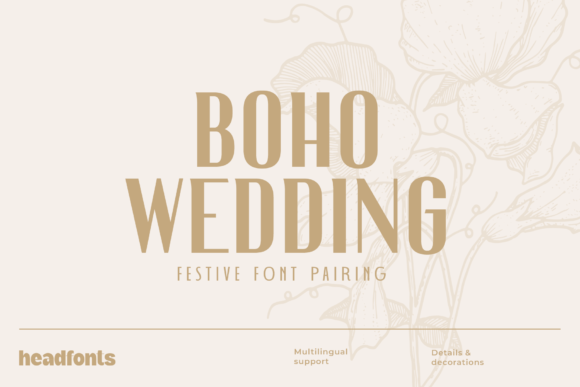
The Boho Wedding Font Duo: Elevate Your Bohemian-Inspired Designs
A Perfect Blend of Elegance and Simplicity
The Boho Wedding Font Duo brings together two beautiful fonts: Nailhead Nova, an exquisite font with refined sophistication, and Decohead, an art deco sans-serif typeface with a clean and geometric design. This versatile duo is perfect for bohemian-inspired weddings, and can be used for a variety of design projects, from wedding invitations and place cards to other celebratory designs.
• ✨ Elegant and sophisticated: Nailhead Nova is perfect for adding a touch of glamour to your designs.
• ✅ Clean and geometric: Decohead is great for creating a modern and sleek look.
• ⚡️ Versatile: This font duo can be used for a wide range of design projects, from wedding designs to other festive projects.
The Designer Inspiration Behind the Boho Wedding Font Duo
The Boho Wedding Font Duo was inspired by the free-spirited and eclectic world of bohemian design. Imagine a world where elegance and simplicity come together in perfect harmony, where art deco meets bohemian chic. This font duo is the result of a passion project between two designers who wanted to create a versatile and beautiful font pairing that captures the essence of bohemian beauty.
What is the Boho Wedding Font Duo? The Boho Wedding Font Duo is a pairing of two beautiful fonts, Nailhead Nova and Decohead, designed specifically for bohemian-inspired weddings and design projects.